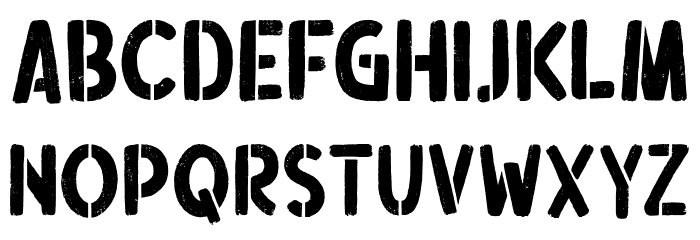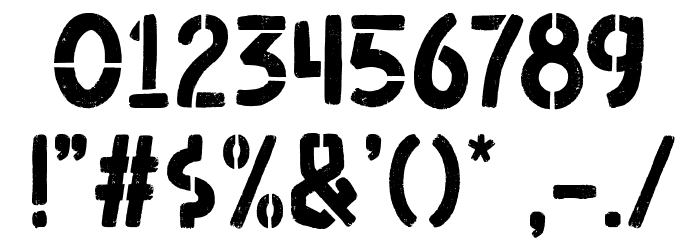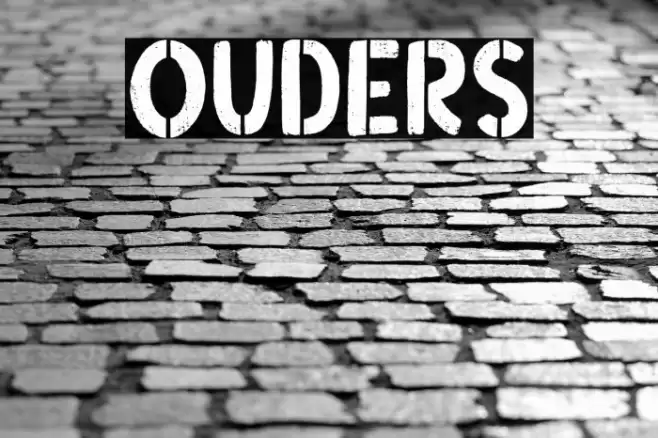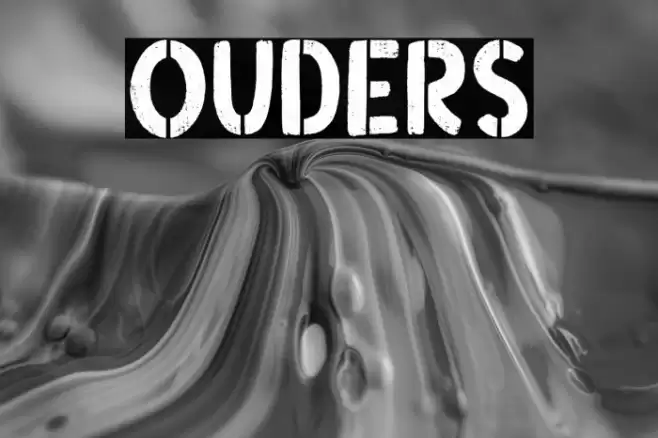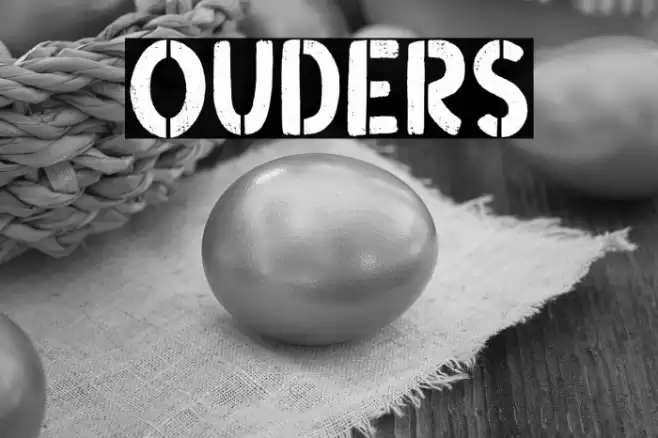
Ouders Font
This font features a bold, distressed style with a stencil-like appearance. The characters are robust and impactful, with a rough texture that gives them a rugged, industrial feel. The uppercase letters are uniform in height, while the lowercase letters maintain a consistent style, enhancing readability. The numerals and special characters follow the same design, ensuring a cohesive look across all elements. This font's unique texture and boldness make it stand out, ideal for projects that require a strong visual impact.
A bold, distressed stencil-style font with a rugged texture.
- Font: Ouders
- Proposed Projects: Perfect for posters, branding, packaging, and any project needing a bold, industrial aesthetic.
- Overall Style: Industrial, Rugged